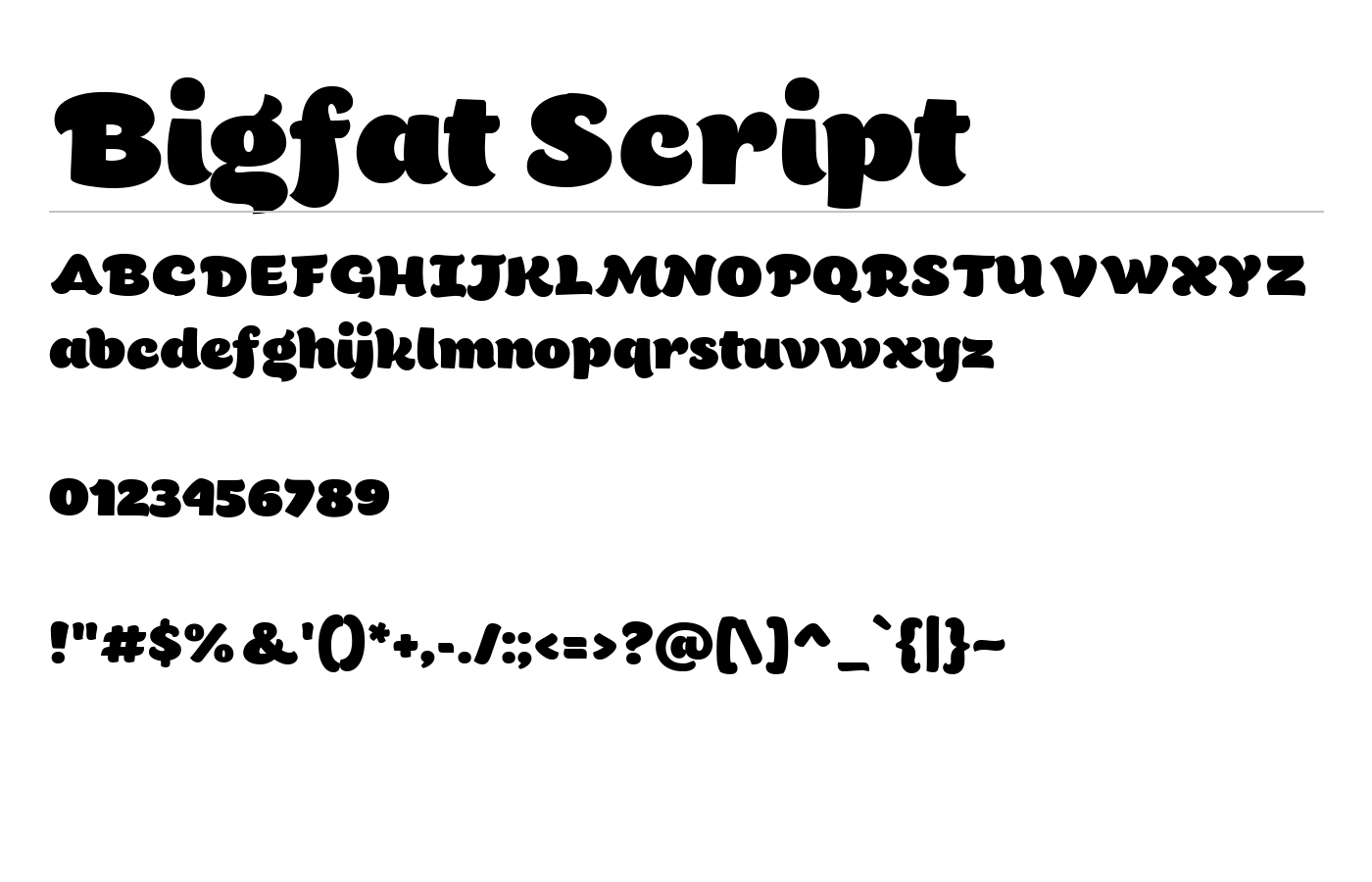
Bigfat Script is a bold and playful display font with thick, rounded letterforms that convey a friendly and approachable vibe. Its heavy weight, high x-height, and softly curved strokes make it perfect for eye-catching headlines, logos, or branding that seeks a fun, casual, and confident personality. This font works well in creative and informal contexts where a strong yet inviting presence is desired.
Bigfat Script Font
About Bigfat Script Font
| Designer | Hendra Pratama |